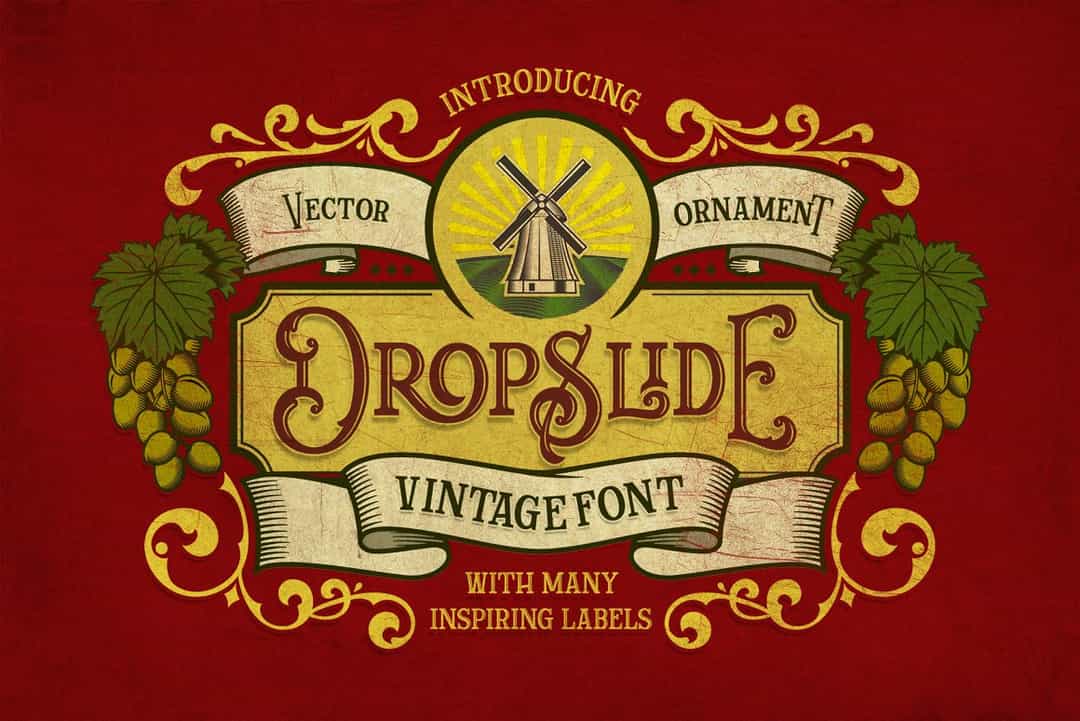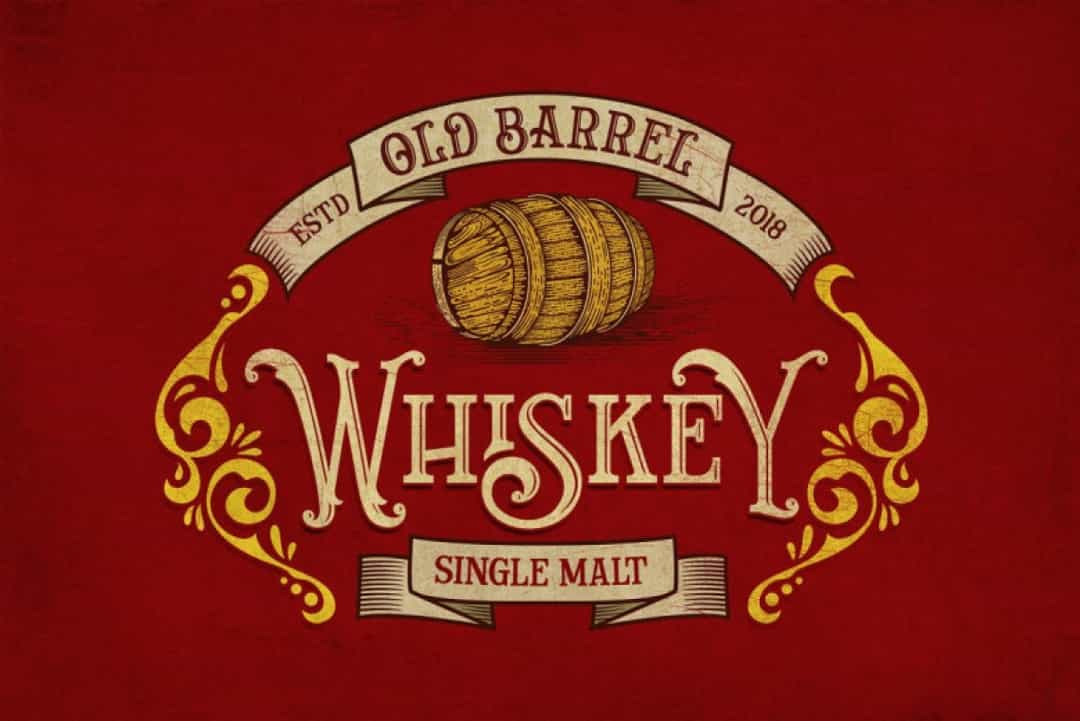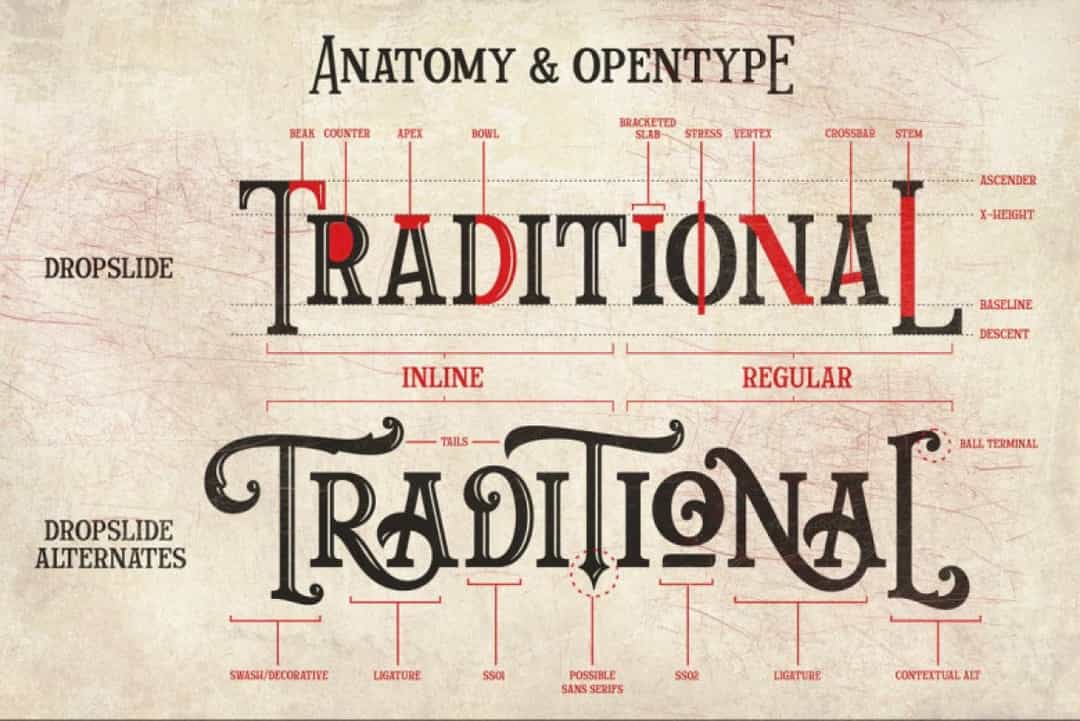
Dropslide font is an example of handcrafted font, designed by hand to evoke vintage posters and posters from earlier decades. Rekindle your passion for vintage with Dropslide font; its beauty will inspire and delight each time it’s used. When designing designs with Dropslide fonts you will experience their advantages of affordability and quality assurance that we provide. So what are you waiting for if this font can bring more vintage back into your designs than any other option out there.